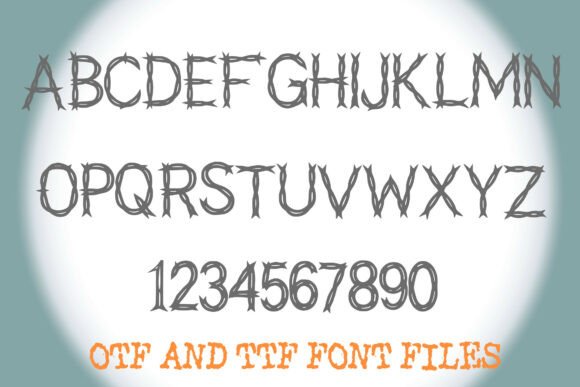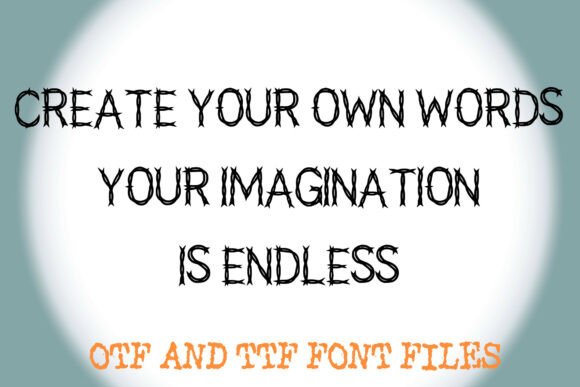
The Ultimate Font for Rebels: Unleashing the Power of Barbed Wire Font
I’ll never forget the time I was working on a punk band merchandise project, and my client asked for a font that would make their logo look “as edgy as possible.” I scoured the internet for hours, trying to find the perfect typeface, but nothing seemed to fit the bill. That was until I stumbled upon Barbed Wire Font – a bold and rugged typeface that wraps every letter in spiked metal. It was love at first sight! 💕
Whether you’re a designer, crafter, or creative hobbyist, Barbed Wire Font is the perfect addition to your font library. In this article, we’ll dive into the world of Barbed Wire Font, exploring its features, uses, and everything in between.
- 💯 Instant Edginess: Barbed Wire Font adds a touch of rebellion to any design, making it perfect for punk band merch, Halloween invites, protest posters, or extreme sports branding.
- 🎨 Design Possibilities: With its unique spiked metal design, Barbed Wire Font offers endless creative possibilities, from bold statements to subtle textures.
- ⚠️ Legibility: While Barbed Wire Font is stunning, it can be challenging to read in smaller sizes or at a distance. Use it for headlines or large-format designs for maximum impact.
- 🤔 Pairing Fonts: Due to its bold and edgy nature, Barbed Wire Font can be tricky to pair with other fonts. Experiment with contrasting typefaces to find the perfect combination.
The Story Behind Barbed Wire Font: Designer Inspiration
Legend has it that Barbed Wire Font was created by a designer who wanted to capture the essence of rebellion and nonconformity. Inspired by the raw energy of punk rock and the DIY spirit, they crafted a font that would make a statement. And so, Barbed Wire Font was born – a symbol of resistance and creativity.
| Font Name | Barbed Wire Font |
| Author | squeebcreative |